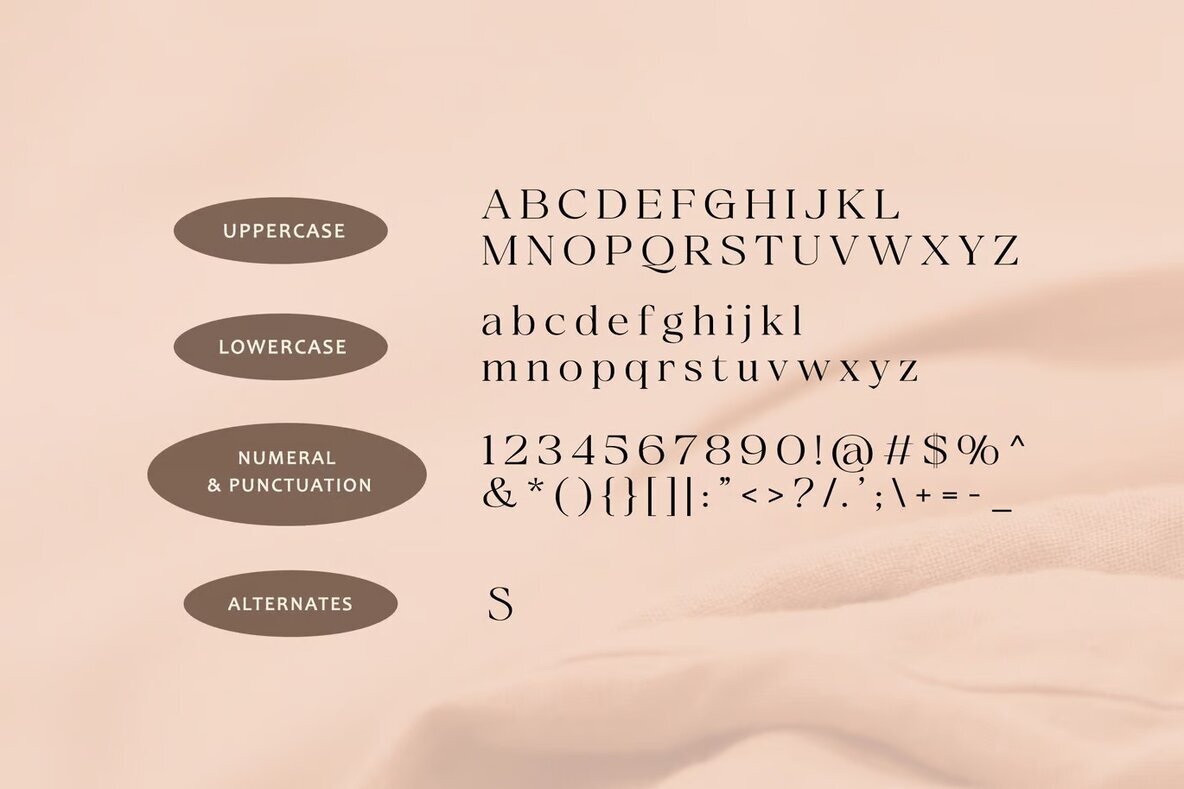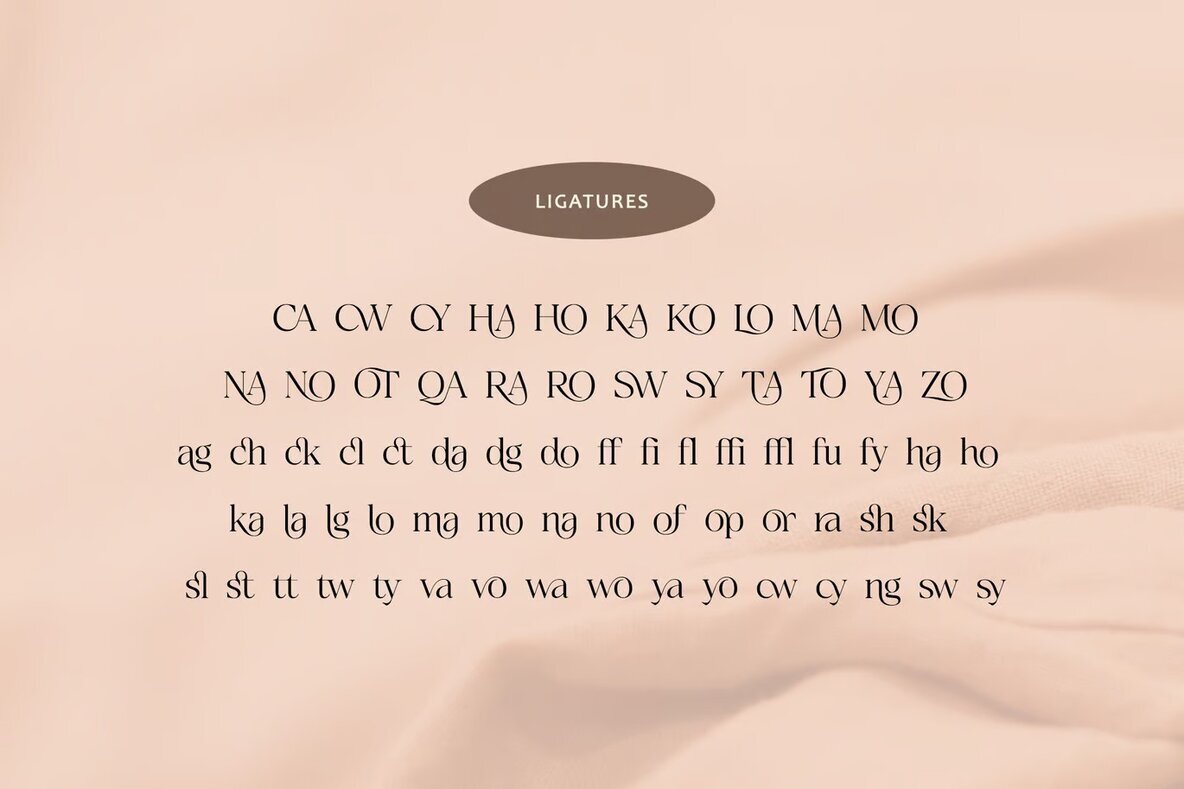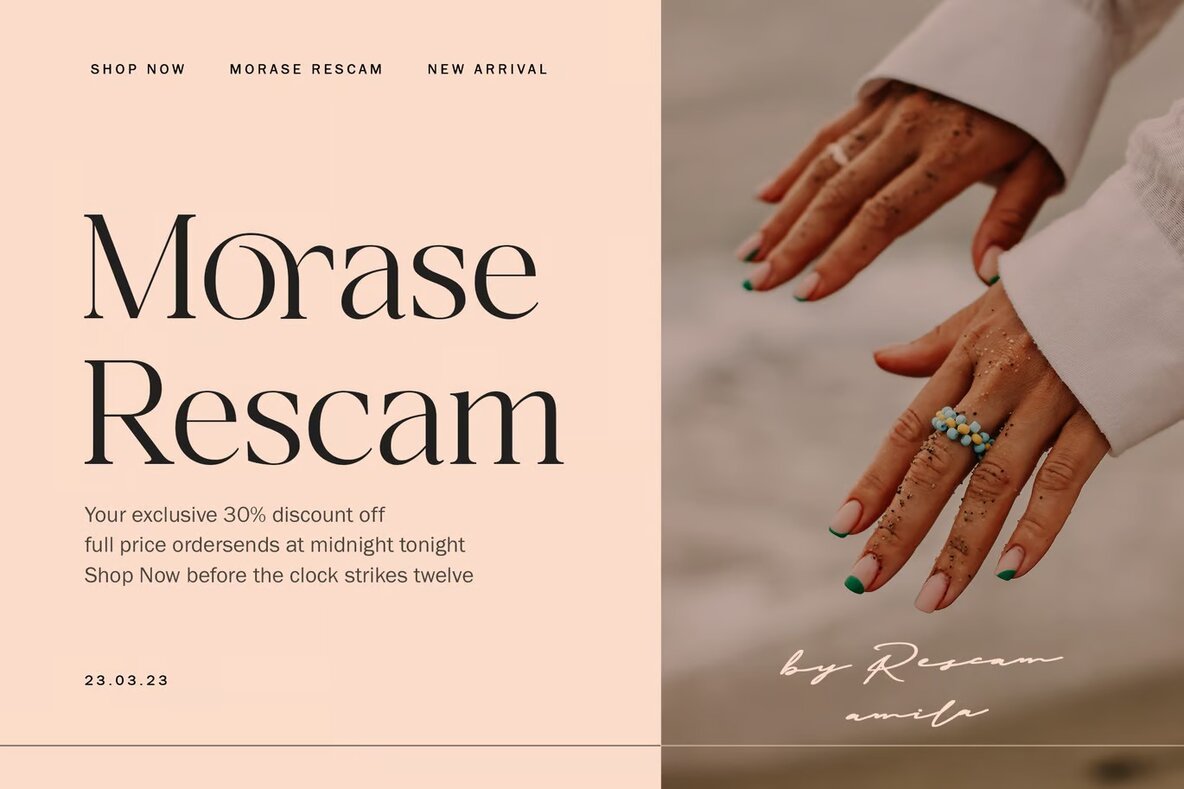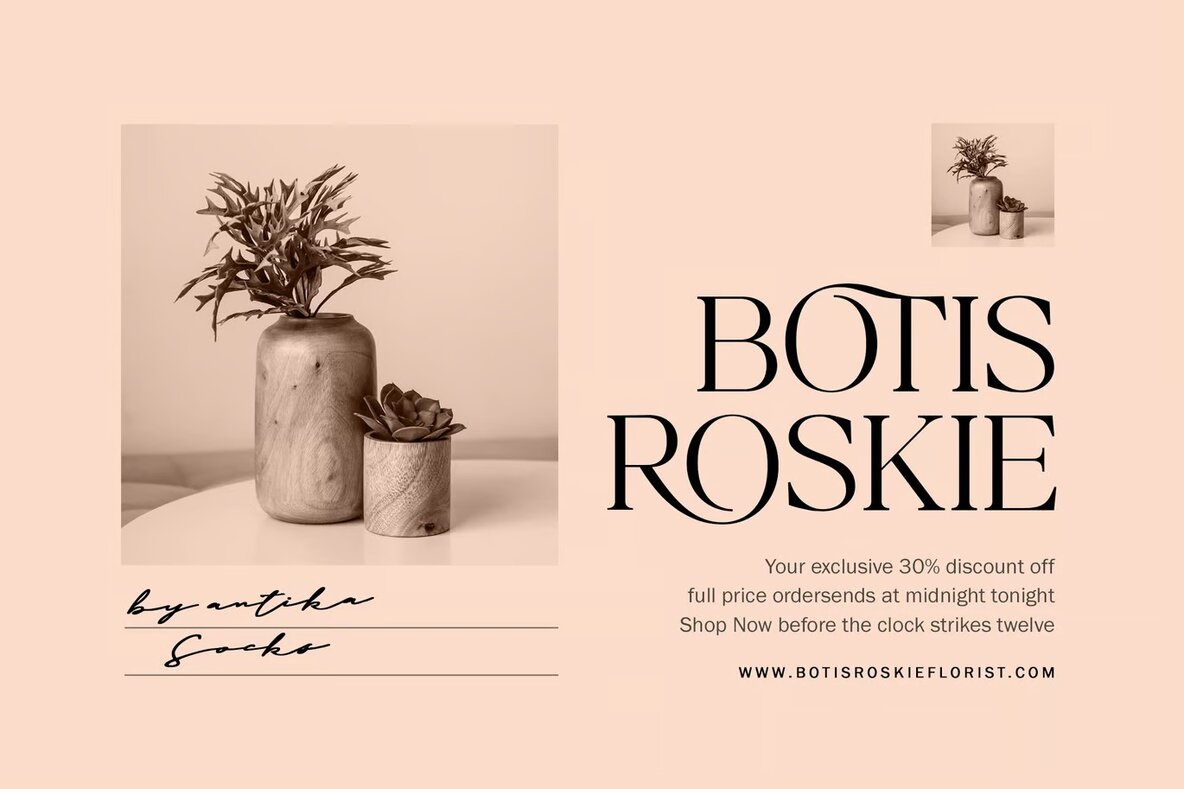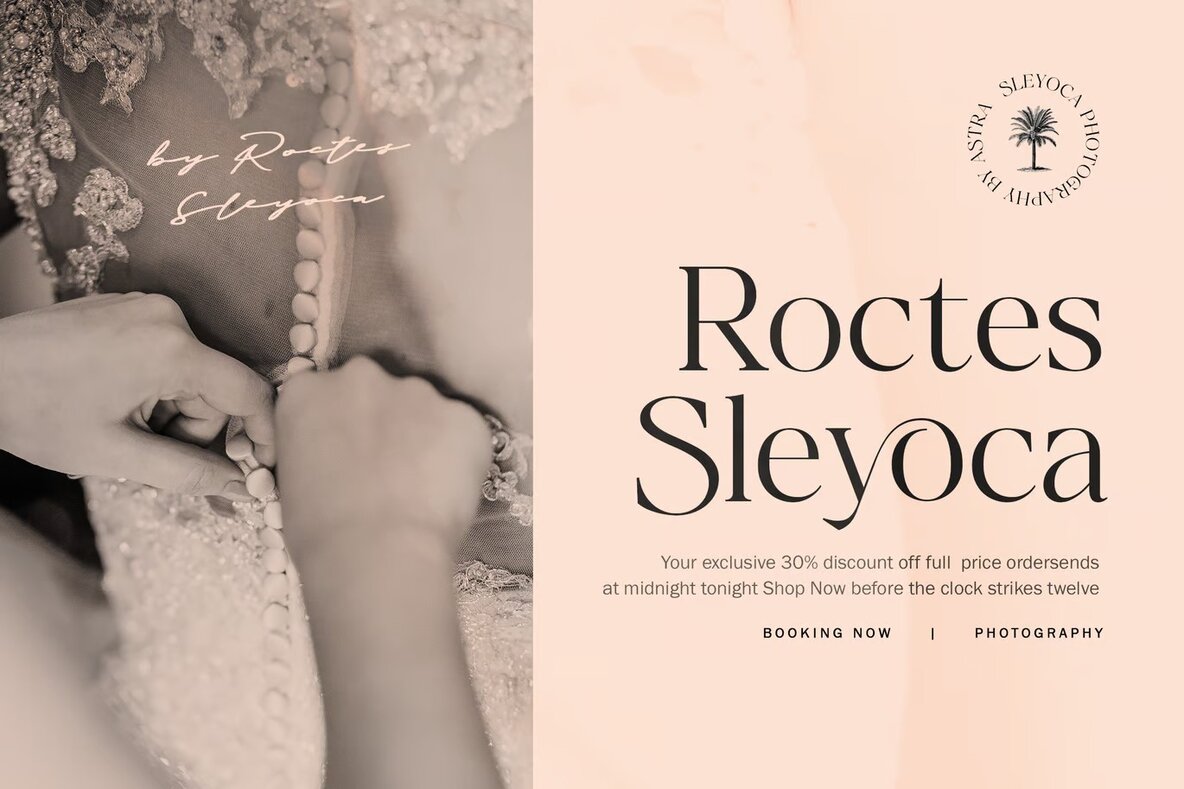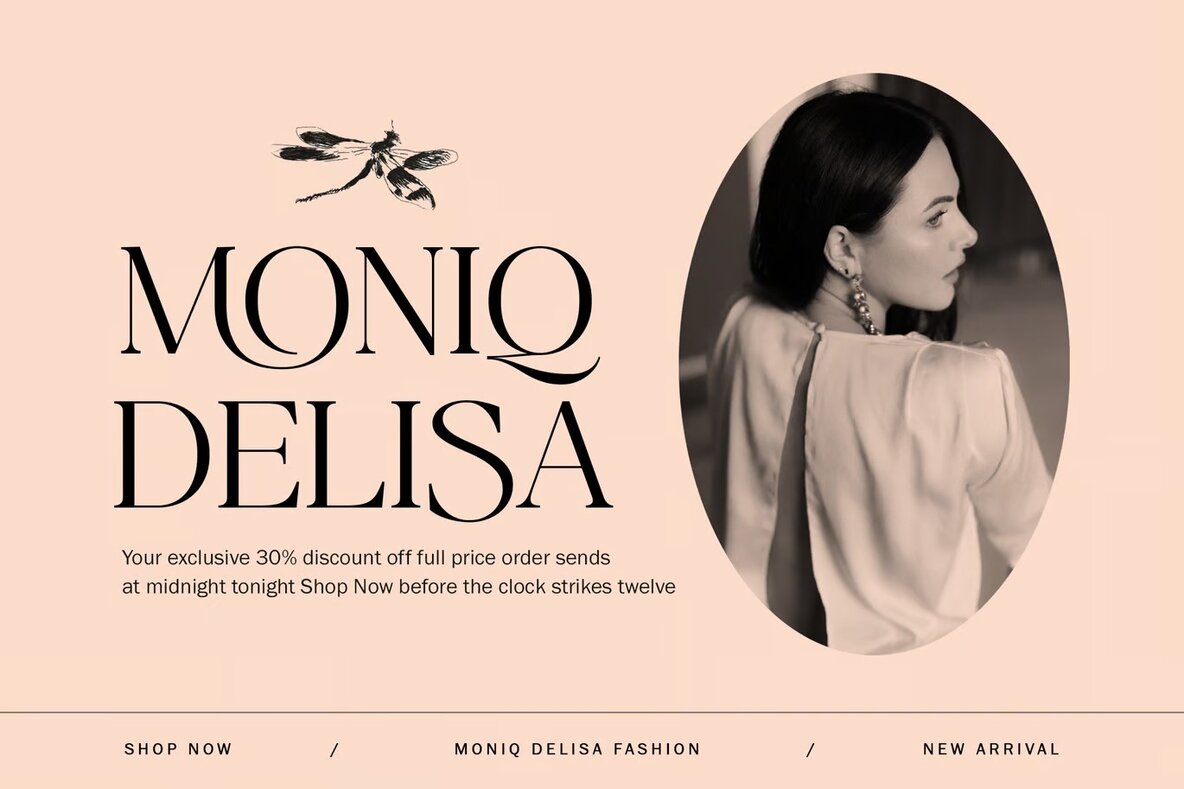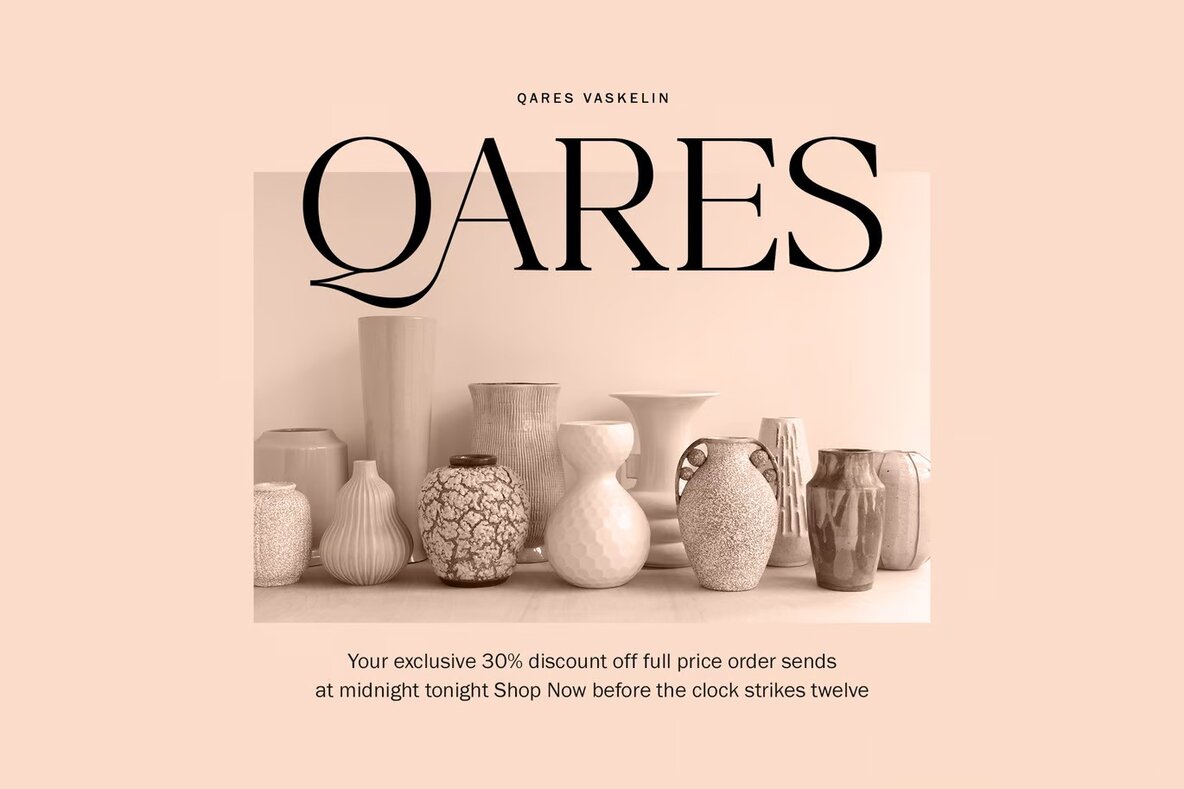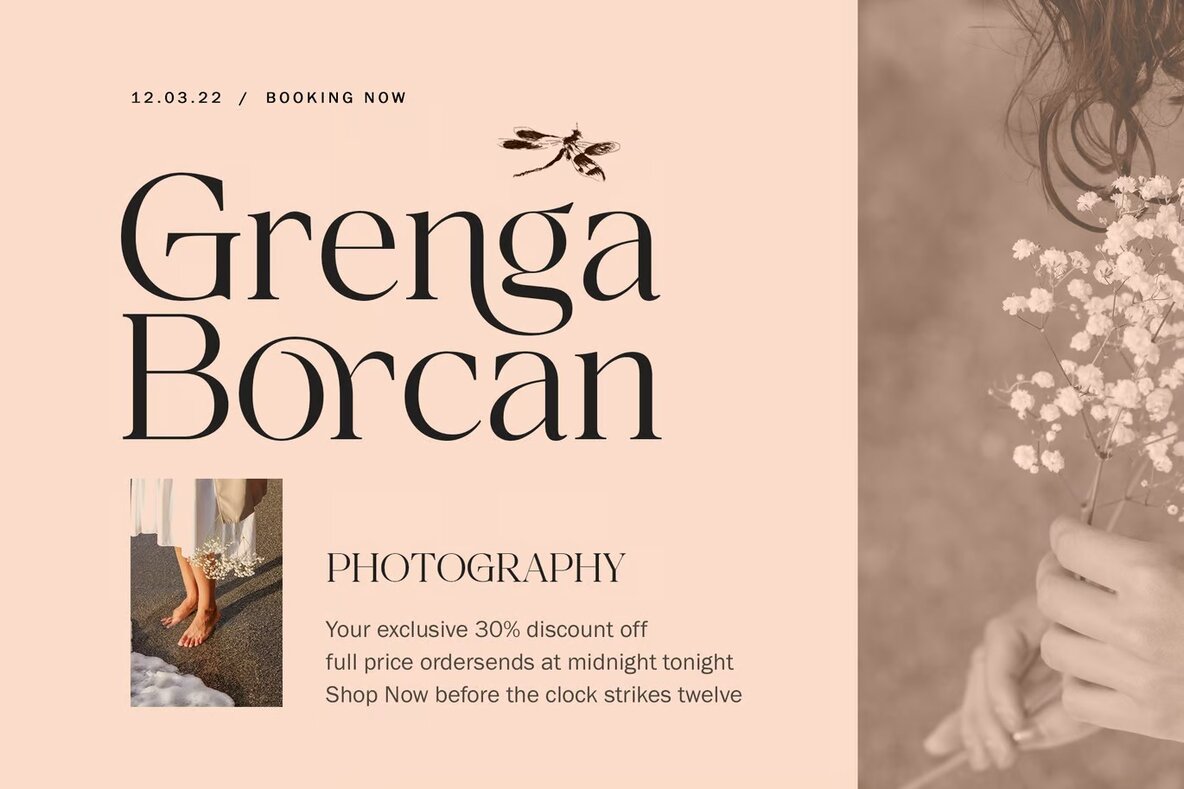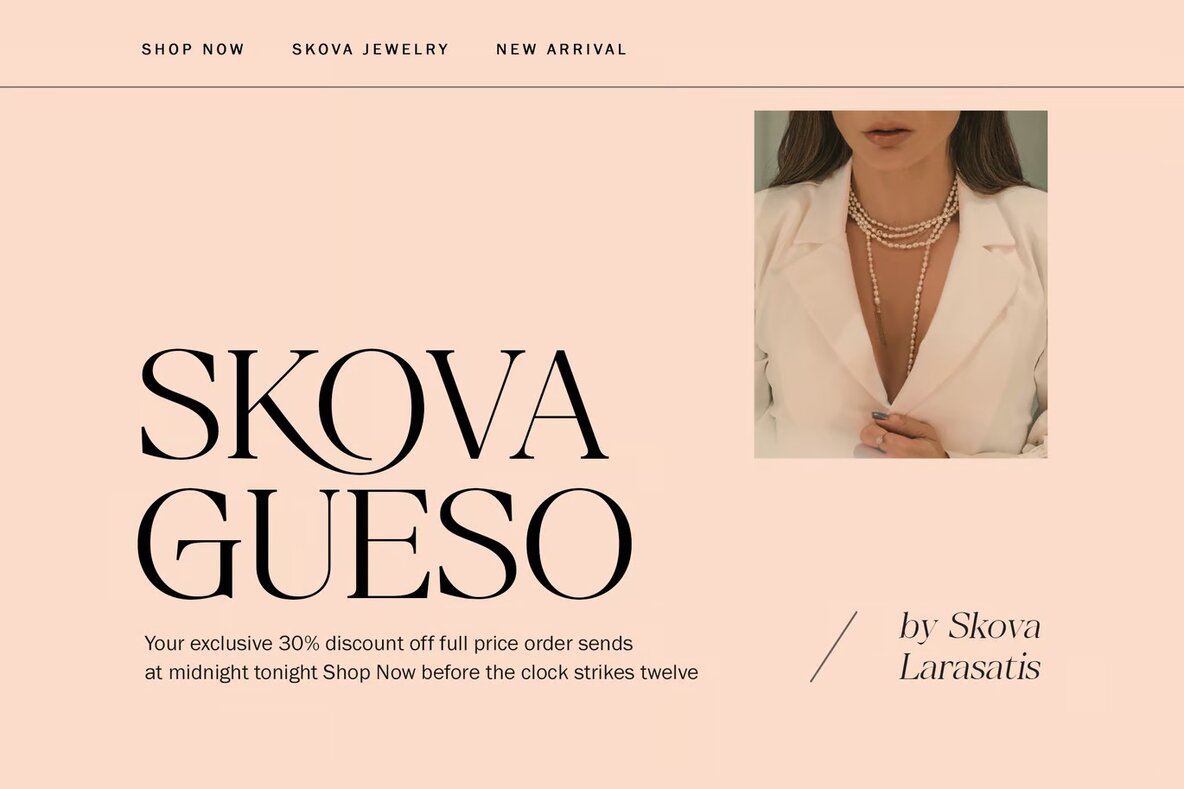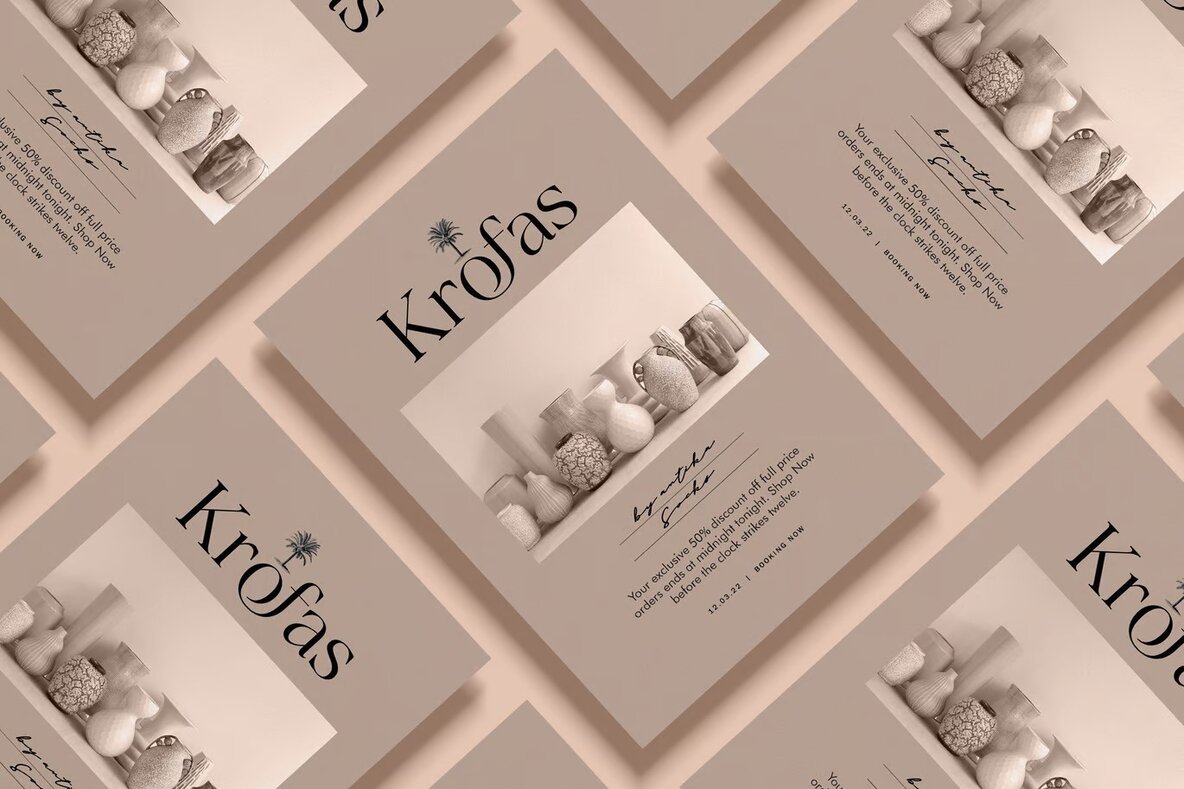
Santorizo - A Stunning Beauty Ligature Serif Font with Extra Features, adding a Touch of Elegance and Creativity to Your Design Projects. This font is perfect for a wide range of design projects, including magazines, books, invitations, logos, and more. Its versatile style makes it suitable for both formal and informal designs, while the extra features add a touch of creativity to your designs. Santorizo includes upper and lowercase letters, numbers, and punctuation, as well as ligatures, swashes, and alternates. These extra features make it a complete font for all your design needs, and provide you with even more options for creativity in your designs. The creation of Santorizo involved extensive research and testing to ensure that it is a high-quality font. The result is a font that is both beautiful and functional, perfect for adding a touch of sophistication and creativity to your designs. With Santorizo, you can bring a touch of elegance, sophistication, and creativity to your design projects. Whether you're working on a formal or informal project, this font is sure to make a statement. Download Santorizo today and start creating stunning designs that stand out from the crowd.
Santorizo is a stunning beauty ligature serif font that adds a touch of elegance and creativity to your design projects. Its unique ligatures, swashes, and alternates give it a distinct and sophisticated look that sets it apart from other fonts.